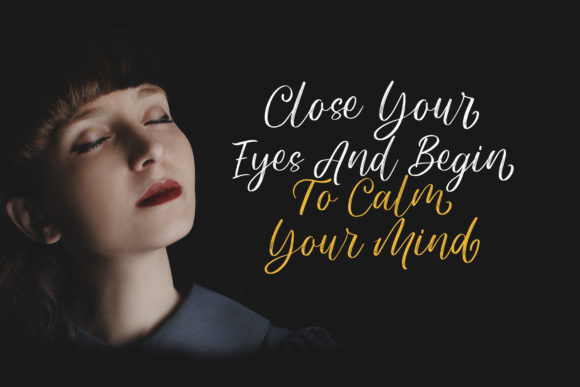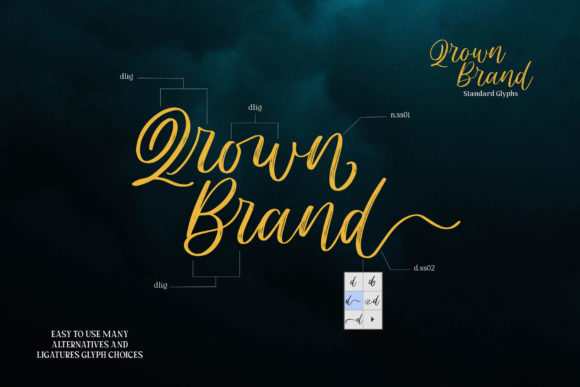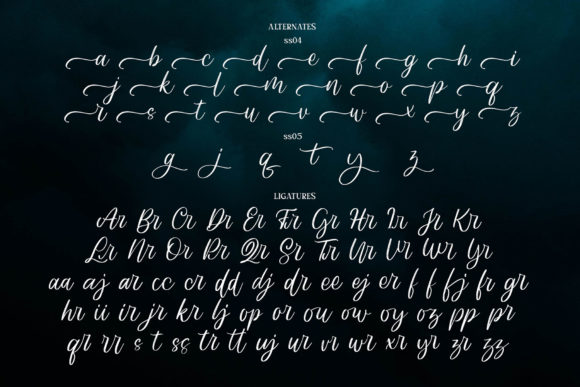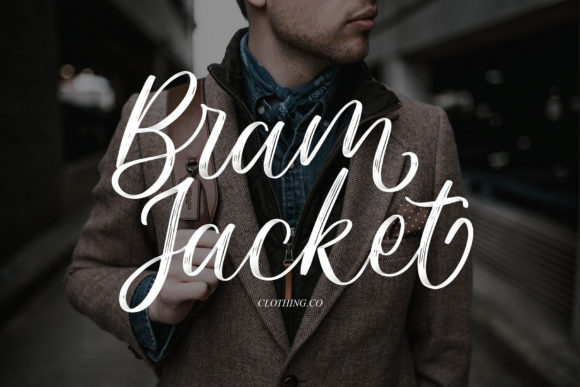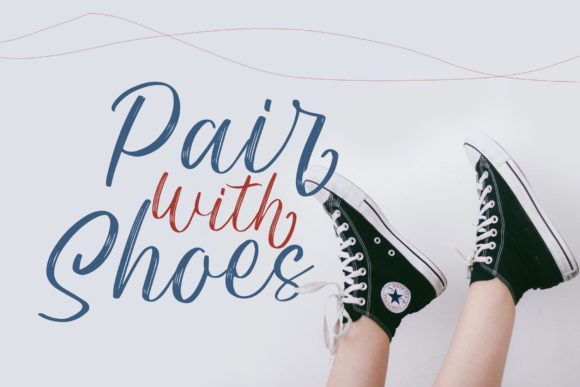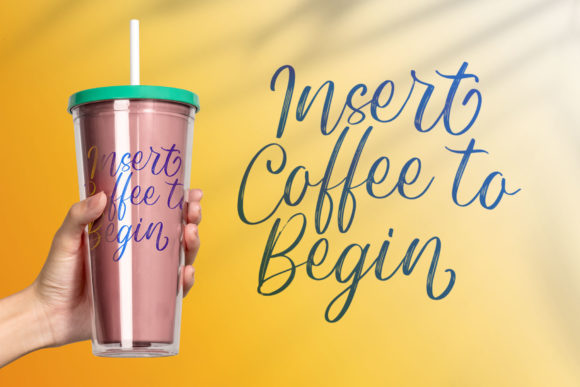
Introduction to Qrown Brand Font
Do you remember the moment when you found the perfect font for your design project? The one that makes your creative vision come alive and gives your work that extra oomph? For designers, discovering a high-quality font can be a game-changer. It’s like finding a hidden treasure that elevates your design to the next level. And today, we’re excited to introduce you to the Qrown Brand Font, a lovely and cursive brushed script font that’s sure to capture your heart.
With its versatility and PUA encoded features, the Qrown Brand Font is an invaluable design resource that allows you to access all of its glyphs and swashes with ease. Whether you’re working on a creative project or need a font for a specific design element, the Qrown Brand Font is an excellent choice. And the best part? It’s available for free download, making it an accessible resource for designers of all levels.
Get ready to fall in love with the Qrown Brand Font and take your designs to new heights with its high-quality, transparent background, and seamless integration capabilities.
Key Features of Qrown Brand Font
- High-quality design resource for creative projects, offering a unique and modern aesthetic.
- Comes with a transparent background, allowing for seamless integration with any design element.
- Designed with a high resolution (up to 300 DPI), ensuring crisp and clear typography even at large sizes.
- Perfect for use in various design contexts, from branding and logos to digital products and print materials.
Honest Review: Qrown Brand Font
I recently stumbled upon the Qrown Brand Font, and I must say it’s been a game-changer for my design projects. As a designer, I’m always on the lookout for high-quality fonts that can elevate my work and give it a professional touch.
Here are some things that work well with Qrown Brand Font:
- ✨ Unique and stylish design that adds a creative twist to my projects.
- ✨ Highly legible and easy to read, making it perfect for body text and headings.
- ✨ Comes with a transparent background, allowing for seamless integration with any design element.
However, there are some limitations to keep in mind:
- ⚠️ Limited font styles and weights, which may not be suitable for complex design projects.
- ⚠️ May not be compatible with older software or operating systems.
Overall, I’m impressed with Qrown Brand Font and would definitely recommend it to fellow designers. It’s a great addition to any design resource and can help take your creative project to the next level.
Tips for Getting the Most Out of Qrown Brand Font
Experiment with different font sizes, styles, and colors to create a unique visual identity. Use Qrown Brand Font in conjunction with other design elements to create a cohesive and professional look.
Common Use Cases for Qrown Brand Font
Qrown Brand Font is perfect for creating logos, business cards, brochures, and other marketing materials. It’s also ideal for presentations, reports, and documents where a professional and creative touch is required.